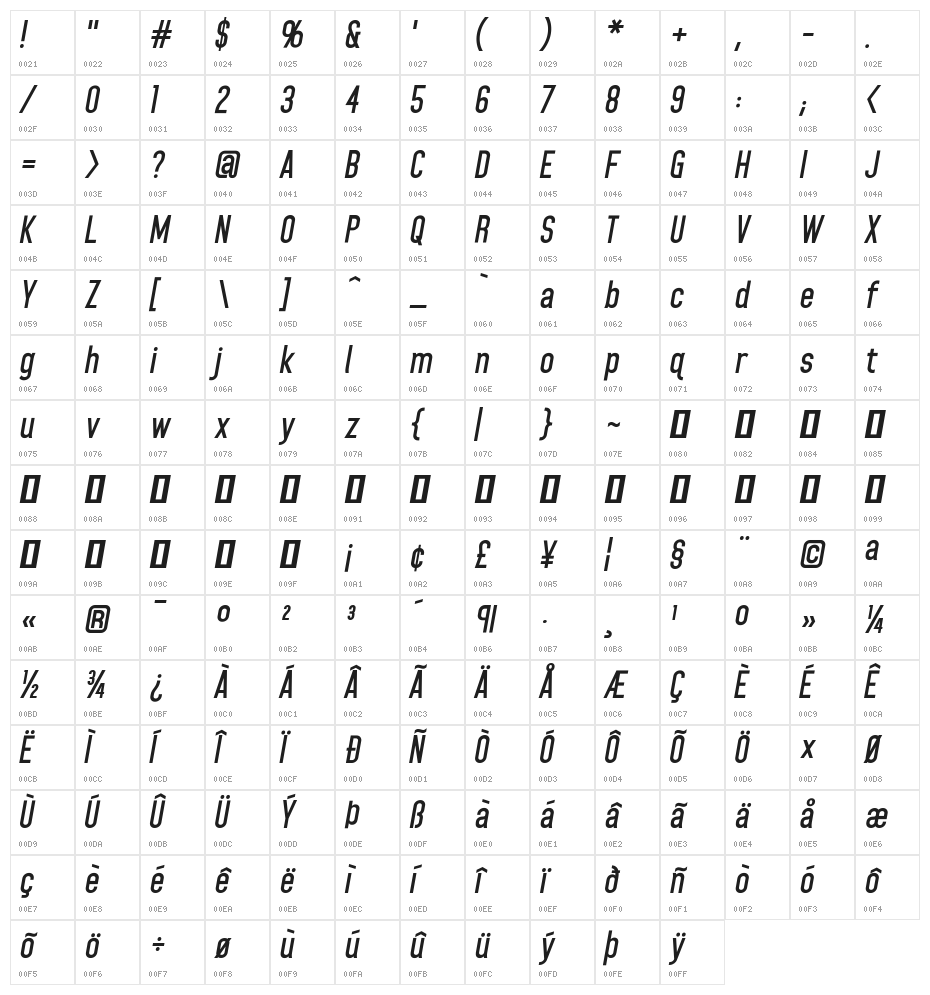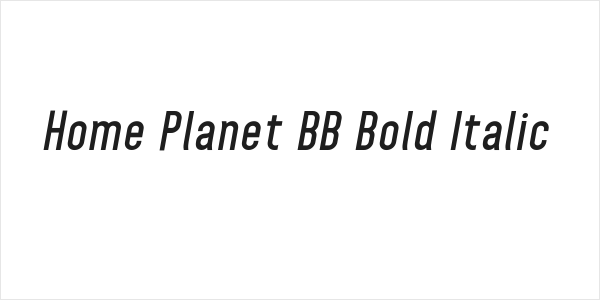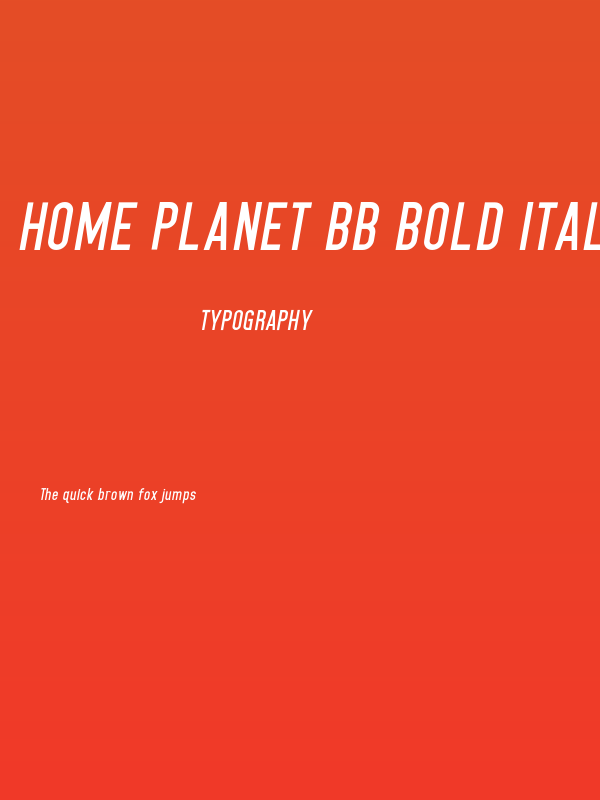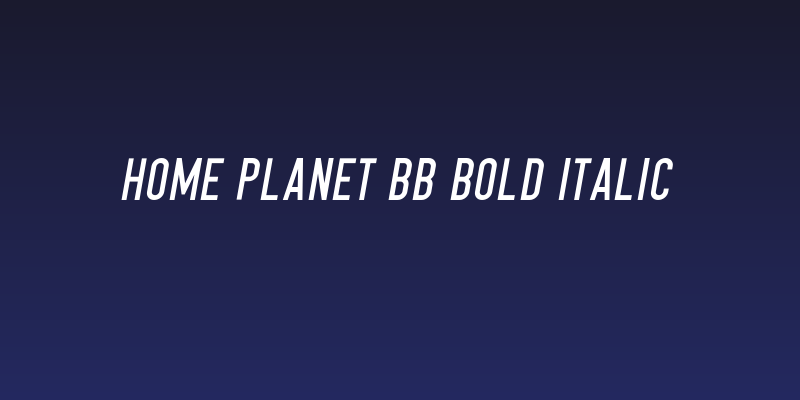
Home Planet BB Bold Italic Font
Home Planet BB Bold Italic Description
This font features a bold and italicized style, characterized by its strong, slanted letterforms that convey a sense of movement and dynamism. The uppercase and lowercase letters are designed with a consistent stroke width, providing a uniform appearance across the alphabet. The numerals and special characters maintain the same bold and italicized characteristics, ensuring cohesion throughout the font. The overall design is modern and sleek, making it suitable for various applications where a bold statement is desired.
| Proposed Projects | Ideal for headlines, posters, branding materials, and any design project requiring a strong, impactful typeface. |